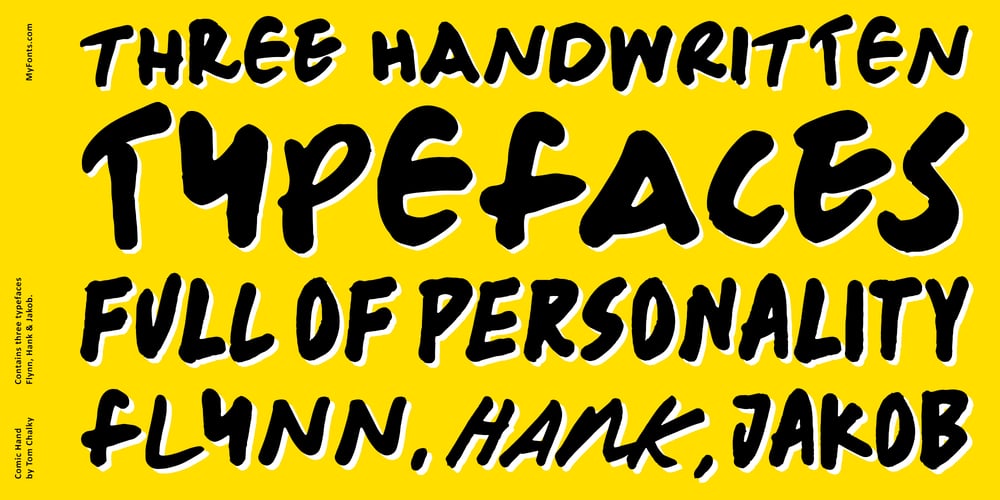
Comic Hand Font Family was designed by Tom Chalky and published by Tom Chalky. Comic Hand contains 3 styles and family package options. Need to grab attention? Look no further than these three lovingly legible handwritten typefaces oozing with personality and style. Full of charismatic imperfections, this powerful trio is ready for battle!